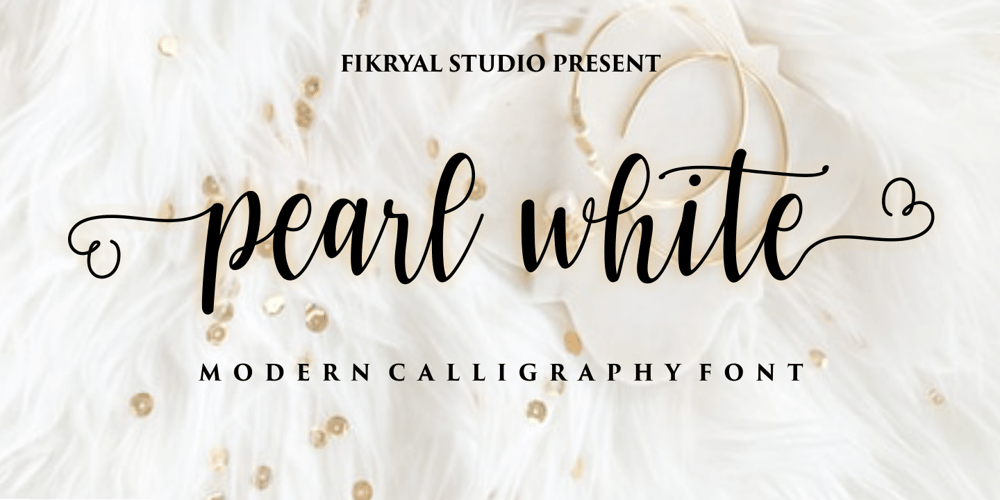
Pearl White Font Family was designed by Muhammad Fikry and published by Fikryal. Pearl White contains 1 styles and family package options. Pearl White is a beautiful calligraphy font perfect for crafting, branding, invitation, stationery, wedding designs, social media posts, advertisements, product packaging, product designs, label, photography, watermark, special events or anything.Pearl White comes with full set of uppercase and lowercase letters, swash alternates, ligatures,multilingual symbols, numerals and punctuation.